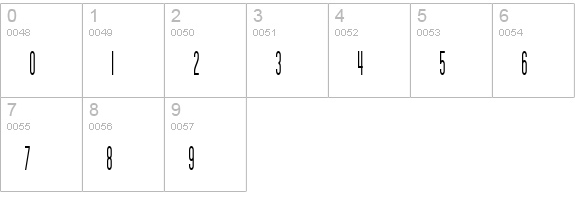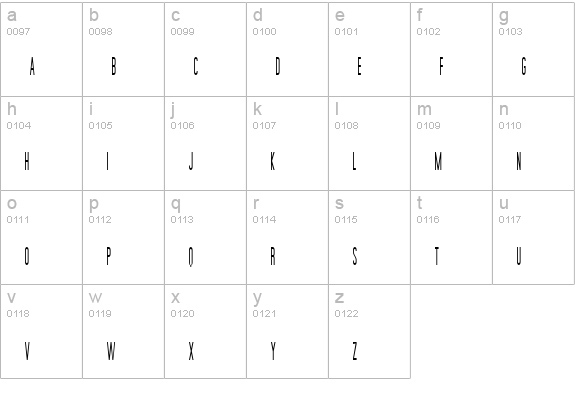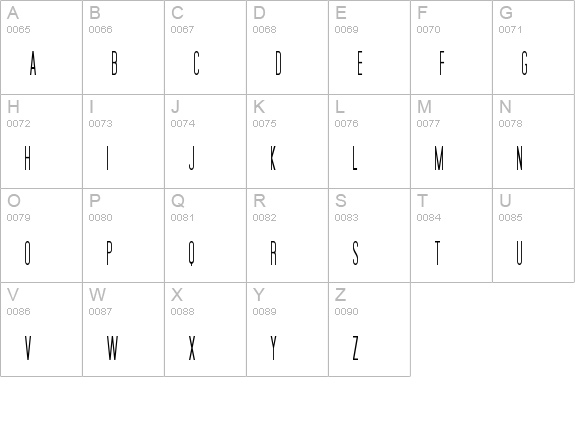
Movie Poster Condensed is a distinctive, condensed-width variant in the Movie typeface family \xE2\x80\x94 well suited to design and typography projects.
Movie Poster Condensed font is a bold and eye-catching typeface perfect for capturing the essence of classic film posters. Its strong, condensed design exudes a sense of drama and nostalgia, making it ideal for headlines, titles, and promotional materials. This versatile font is sure to make a statement and elevate any design project. Best of all, Movie Poster Condensed font is available for free download at FontsMarket.com, making it easily accessible for all your creative needs. Add a touch of cinematic flair to your designs with this striking and impactful font today.